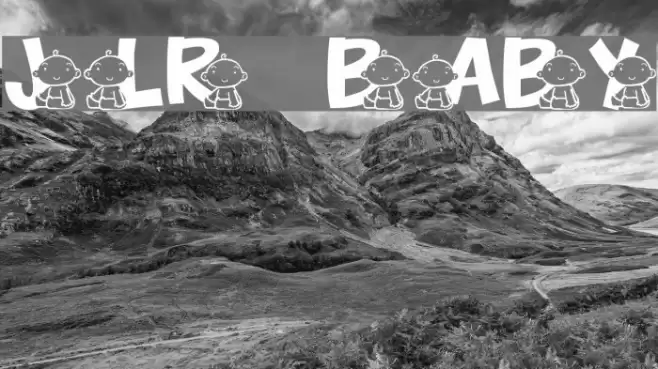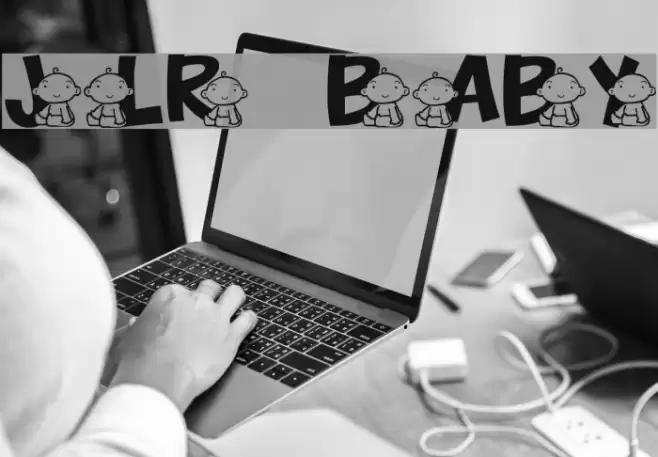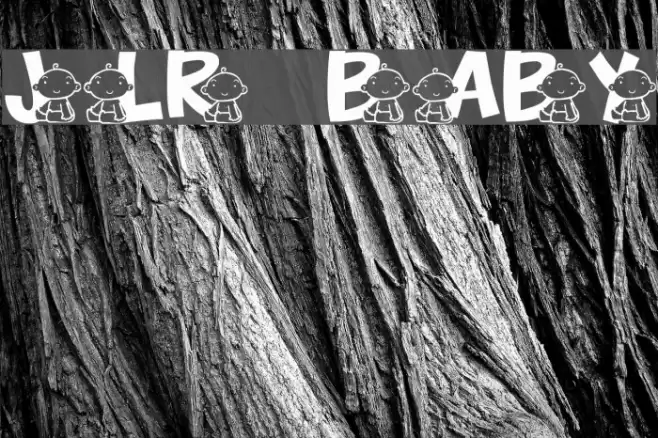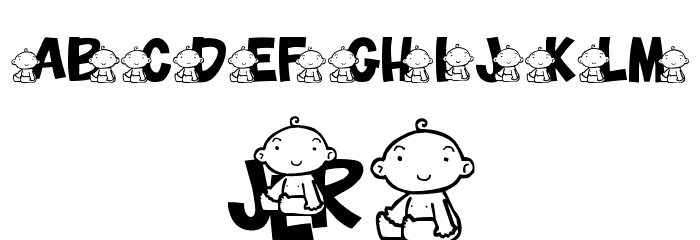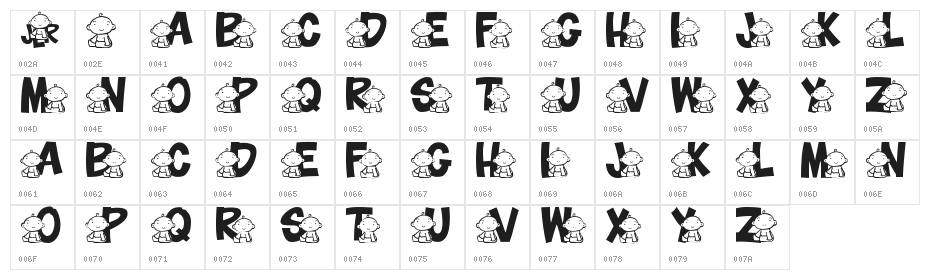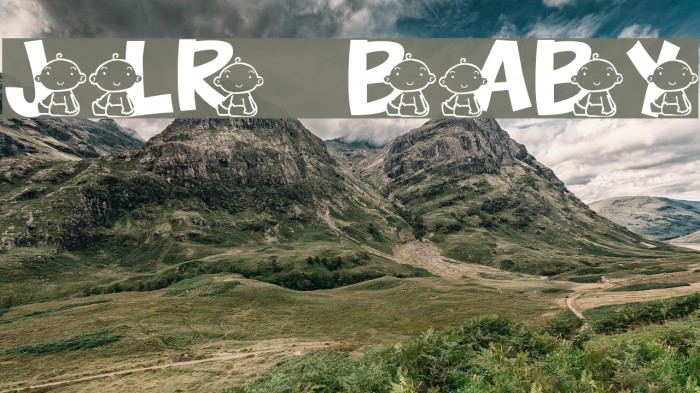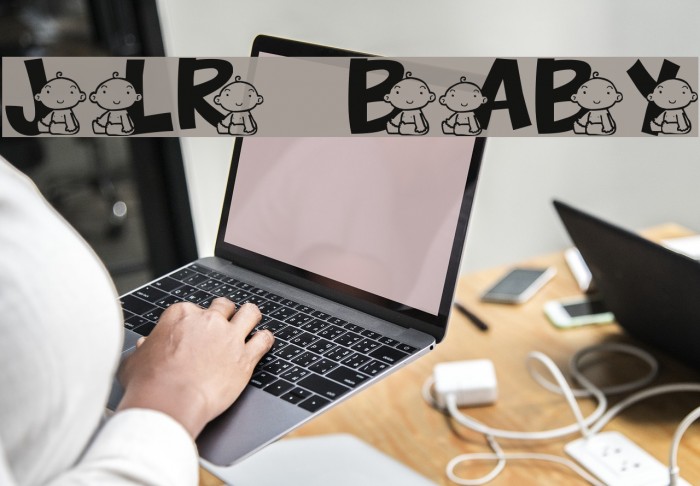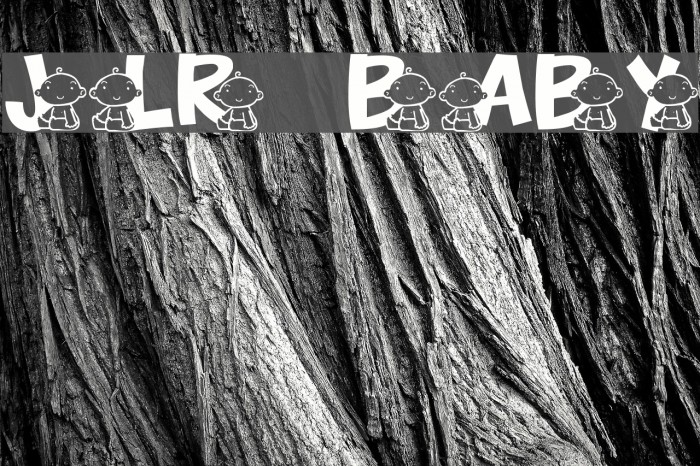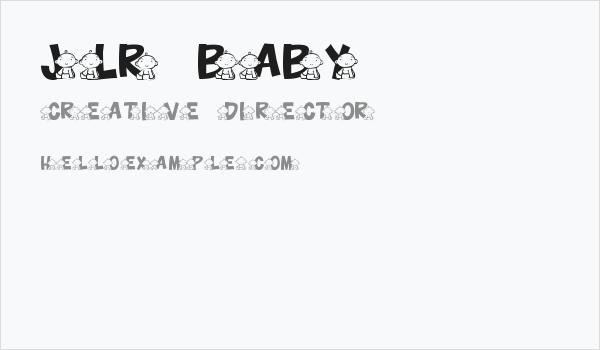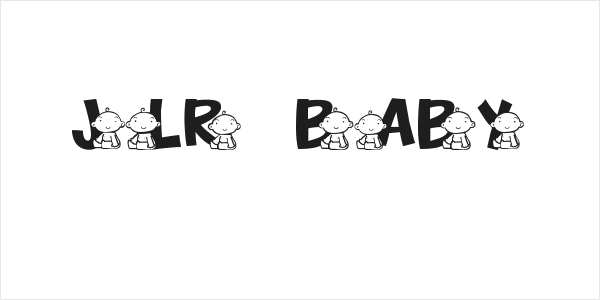
JLR Baby Font
JLR Baby Description
This playful and whimsical font features bold, uppercase letters accompanied by charming baby illustrations. Each character is designed with a cartoonish style, adding a sense of fun and innocence. The letters are bold and slightly rounded, giving them a friendly and approachable appearance. The inclusion of baby graphics makes it particularly suitable for children's materials or playful designs. The font maintains a consistent style throughout, with each letter having a unique baby character that complements the letter's shape. This creative design is perfect for projects that aim to capture a youthful and joyful essence.
A playful font with bold letters and charming baby illustrations from Uncategorized fonts.
- Proposed Projects: Ideal for children's books, nursery decor, baby shower invitations, and playful branding.
- Overall Style: Playful
- Use Case: Headlines, Logos, Children's materials